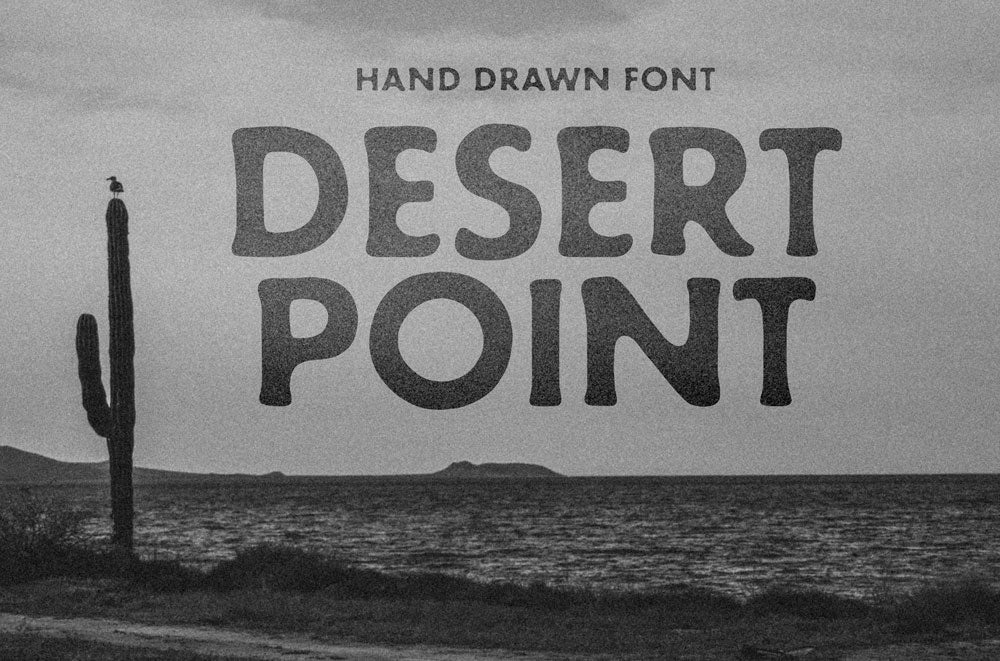
The newest addition to my Hand Drawn Font offering is "Desert Point" a hand drawn font. This OTF font is inspired by southwestern signs and posters.
Desert Point is a vector OTF font that is infinitely scalable. It still possesses the nuance of a hand lettered font, while working just like any other font in your font library.